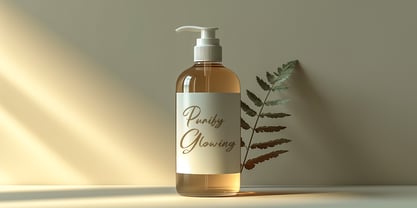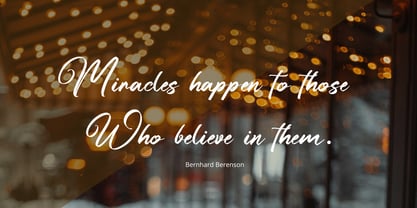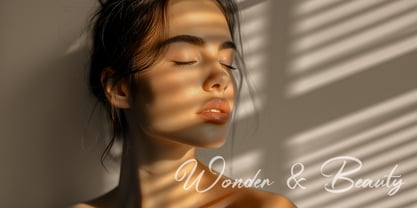
FH Anter Dawn
by FHFont
The FH Anter Dawn Font Family was designed by Ferry Hadriyan and published by FHFont. FH Anter Dawn contains 1 styles. More about this family
Anter Dawn is a script font with a modern calligraphy style and a touch of elegant handwriting. It is suitable for design, element design, events, logos, and awesome work.
Designers: Ferry Hadriyan
Foundry: FHFont